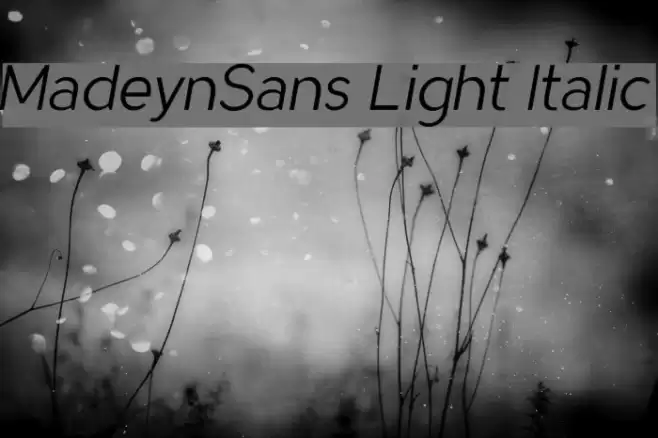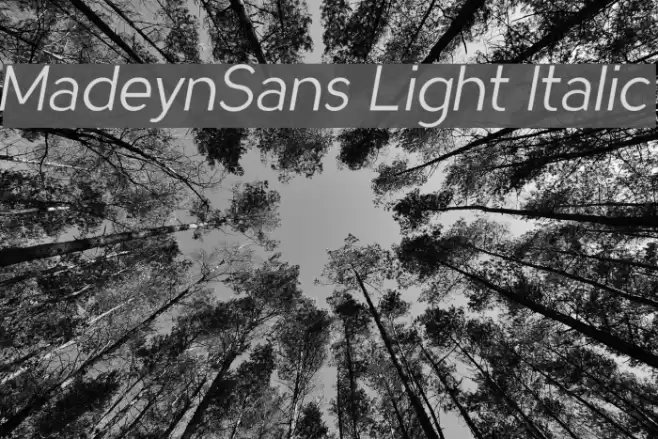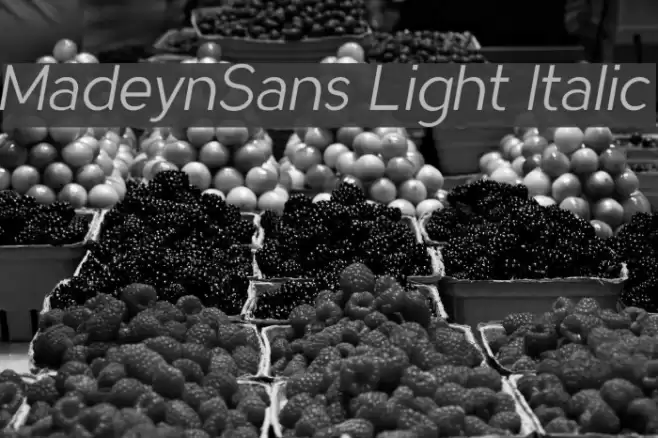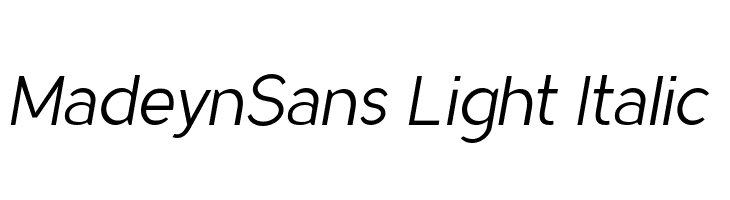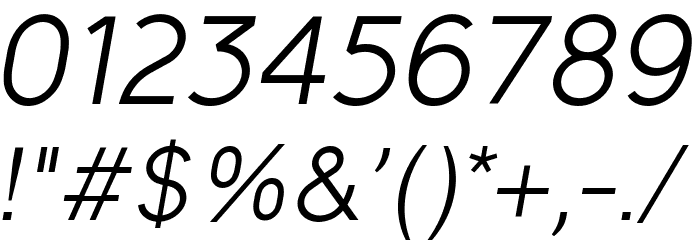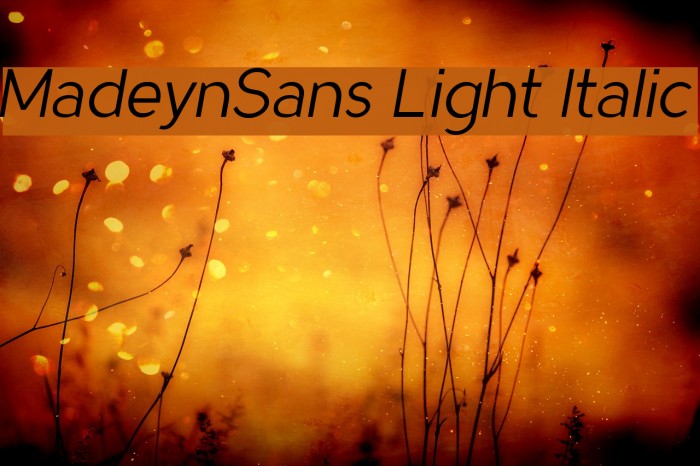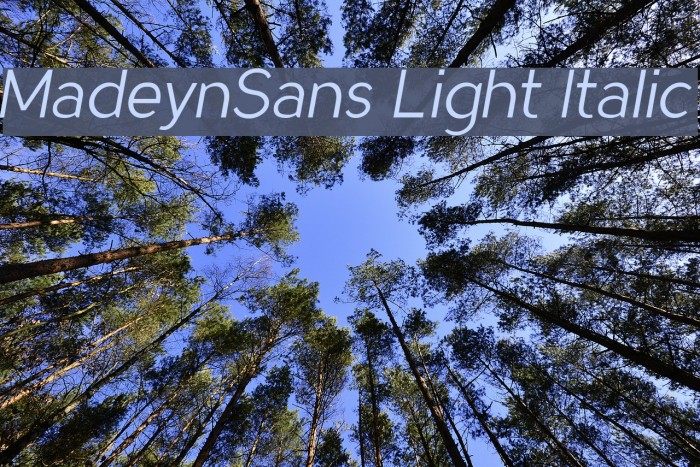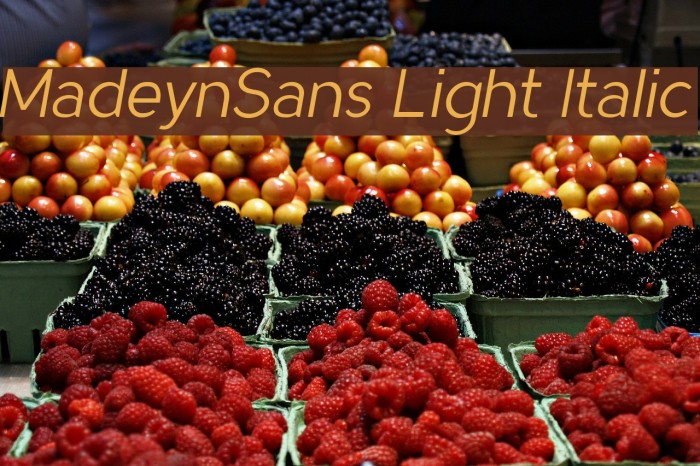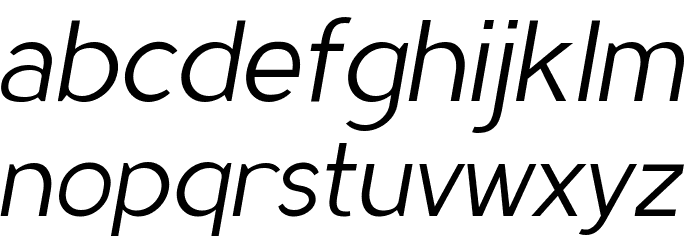
MadeynSans Light Italic Font
MadeynSans Light Italic Description
This font features a sleek and modern sans-serif design with a light weight and italic style. The characters are elegantly crafted with smooth curves and a slight slant, giving it a dynamic and contemporary appearance. The letterforms are clean and minimalistic, with consistent stroke widths that contribute to its refined look. The spacing between characters is normal, ensuring readability while maintaining a stylish aesthetic. This font is versatile, suitable for a variety of design projects that require a touch of sophistication and modernity.
A modern, light, and italic sans-serif font with sleek, minimalistic design from Uncategorized fonts.
- Proposed Projects: Ideal for branding, editorial design, websites, and advertising where a modern and elegant touch is desired.
- Weight: Light